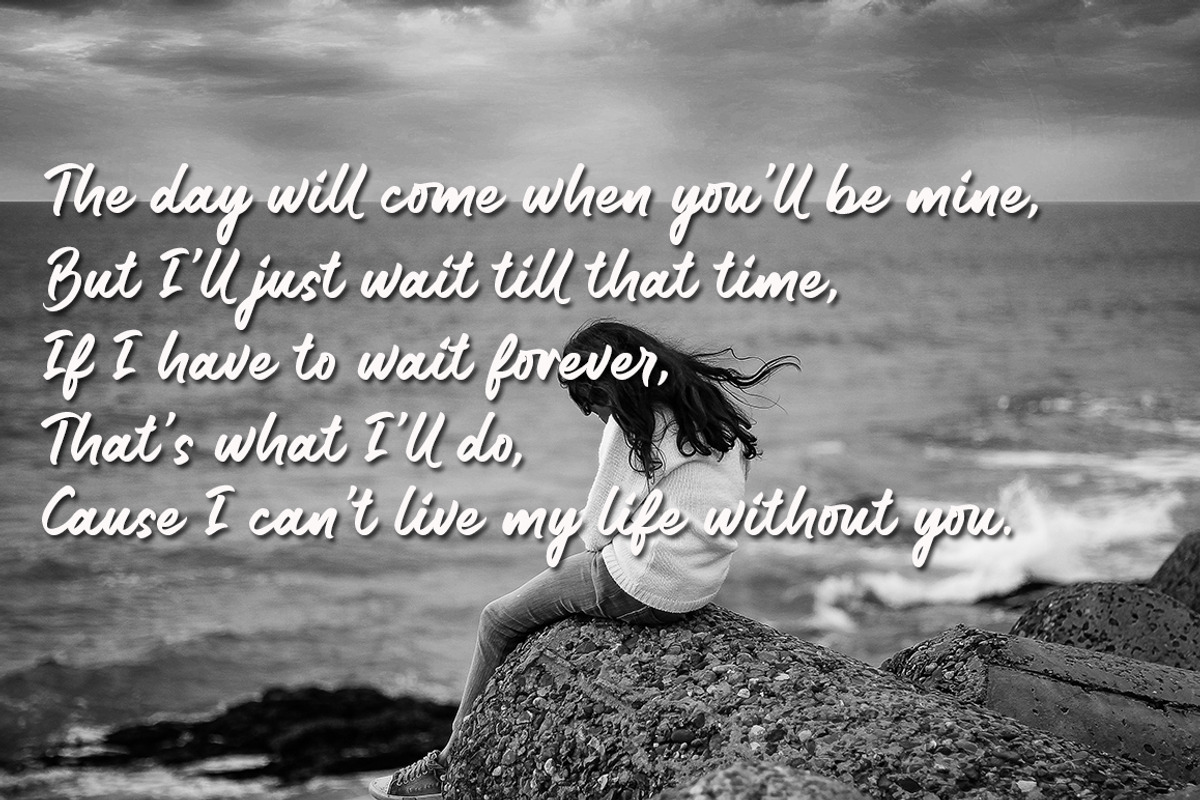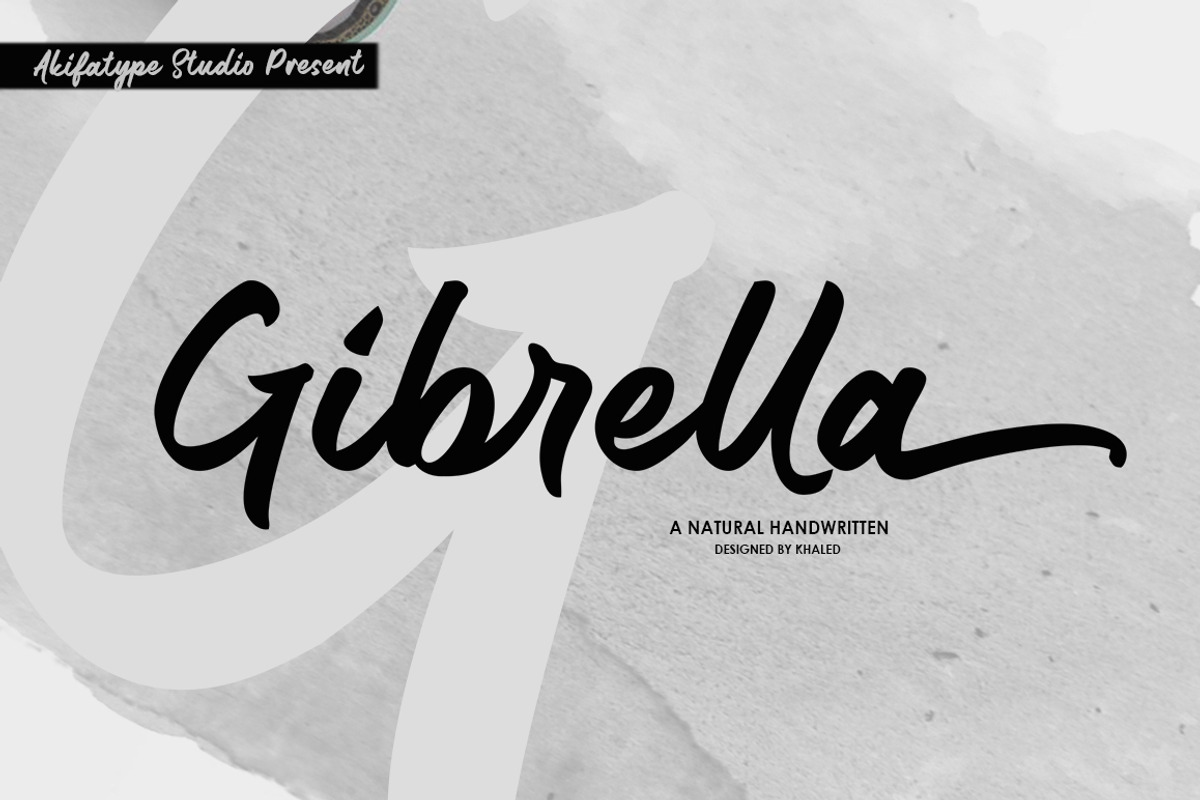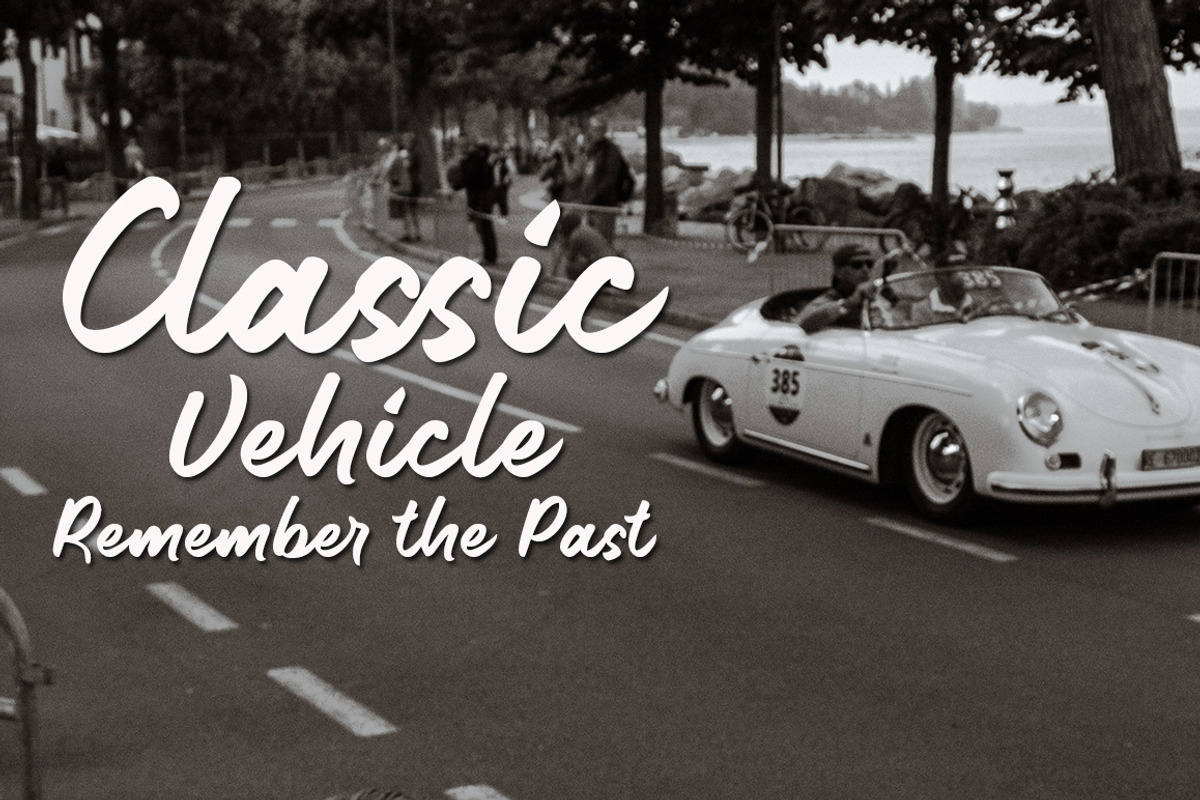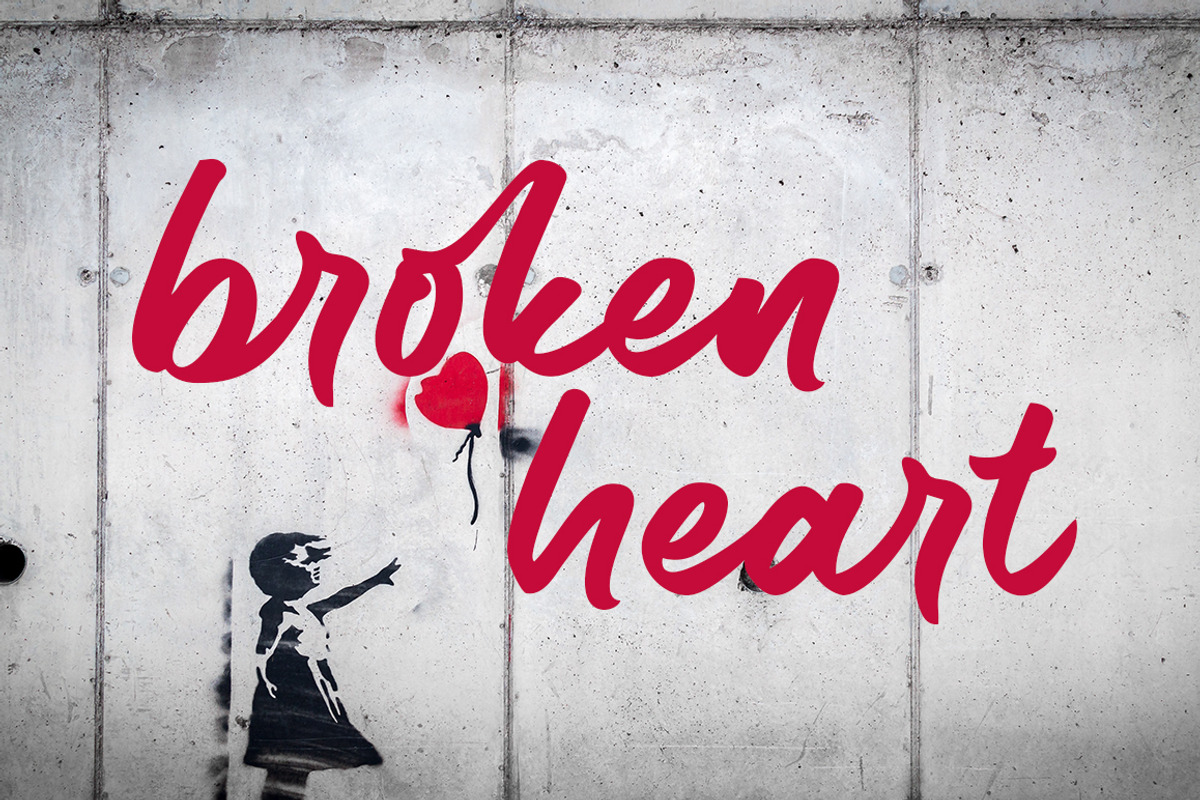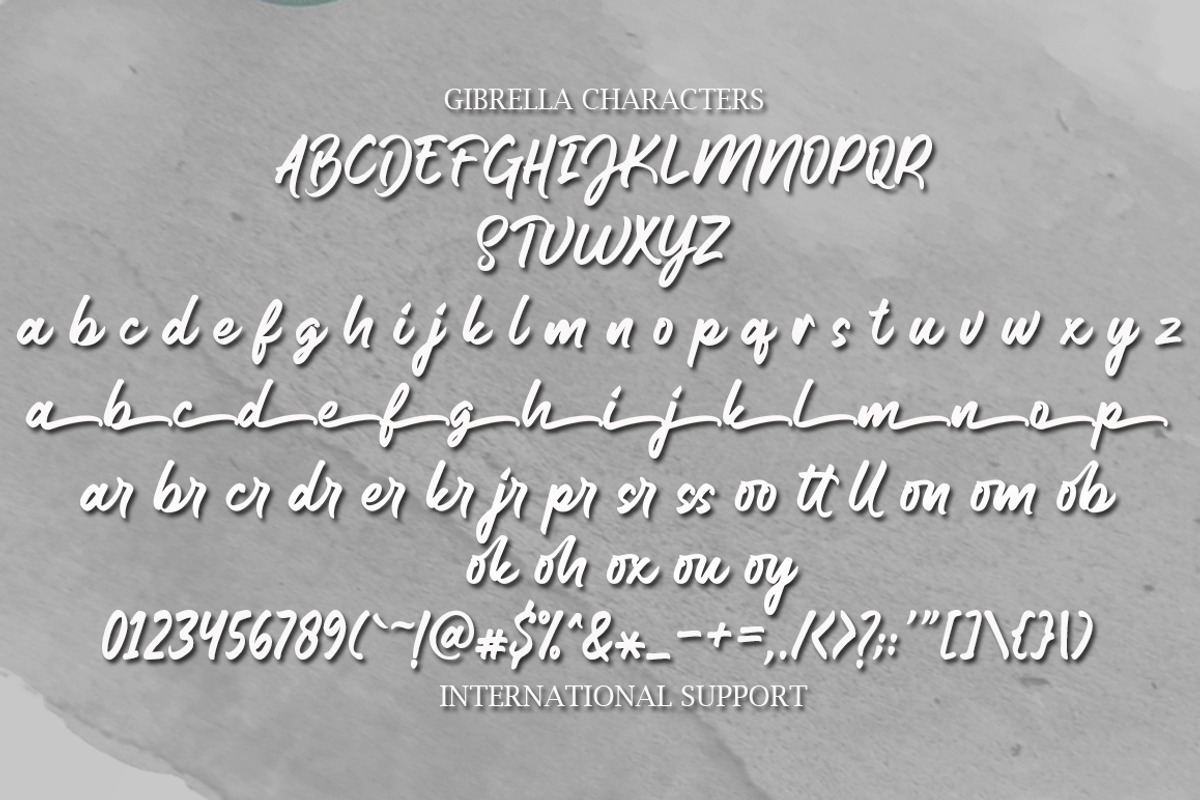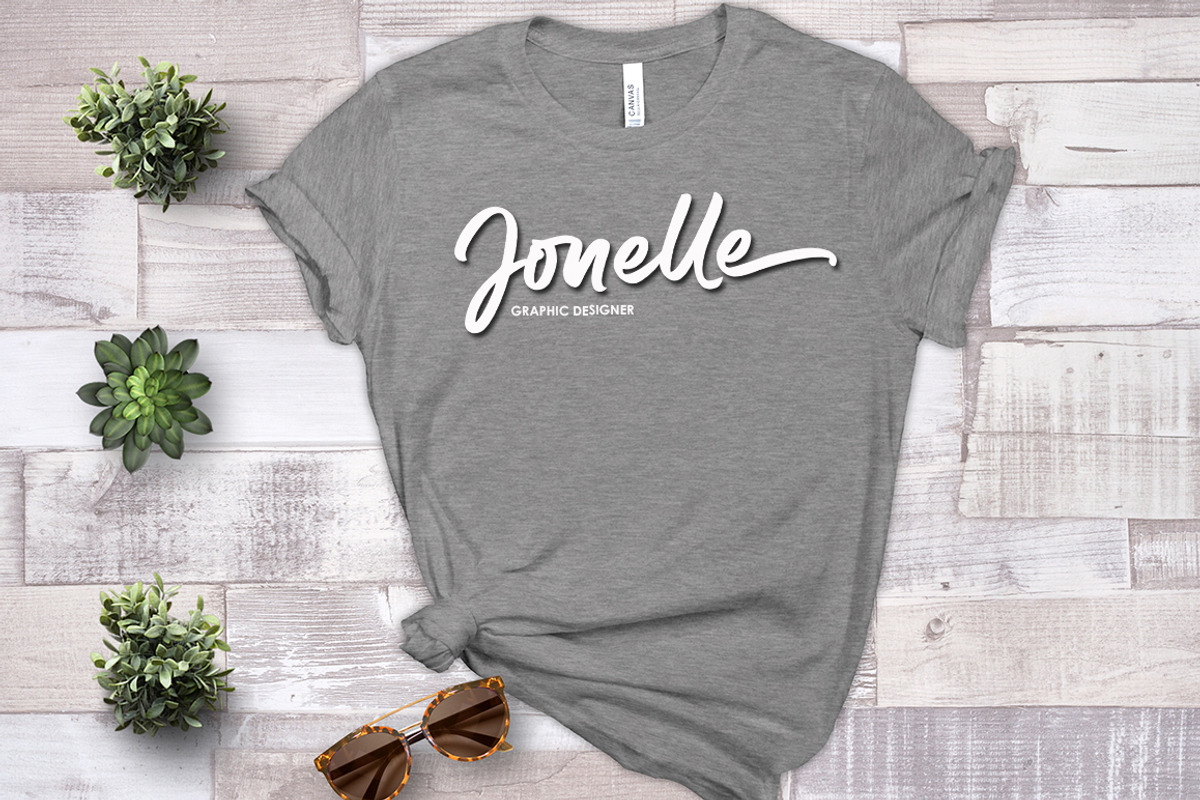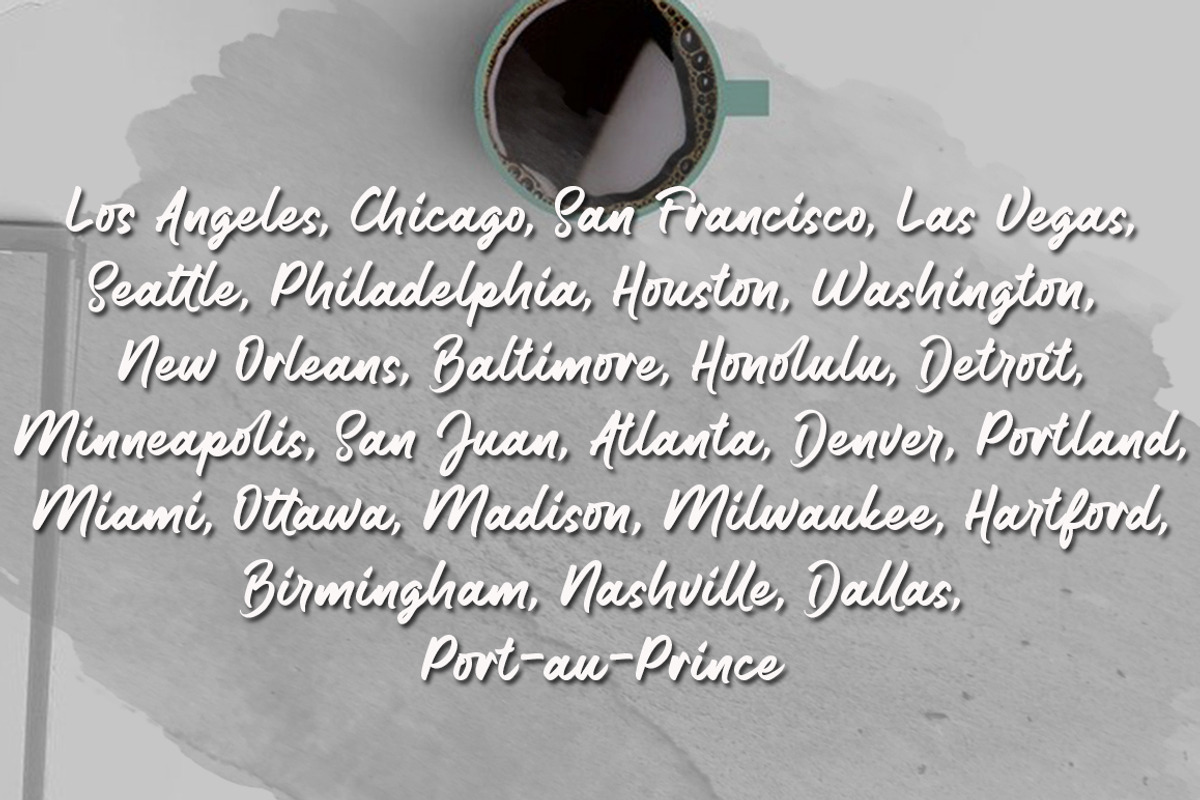
Gibrella
Gibrella is a modern smooth brush font, organic, dynamic and energetic sytle.Can used for various purposes. such as the title, signature, logo, correspondence, wedding invitations, letterhead, signage, labels, newsletters, posters, badges, etc.